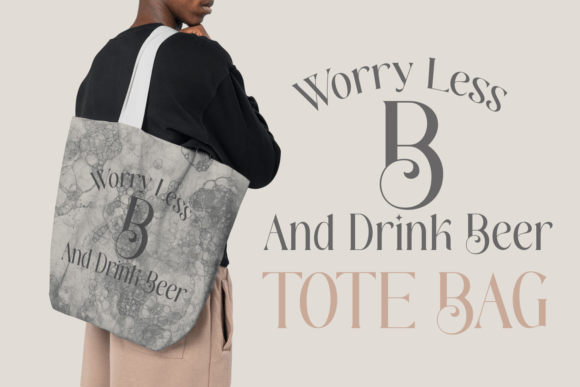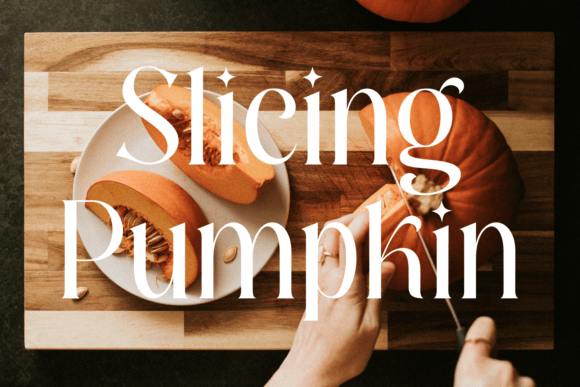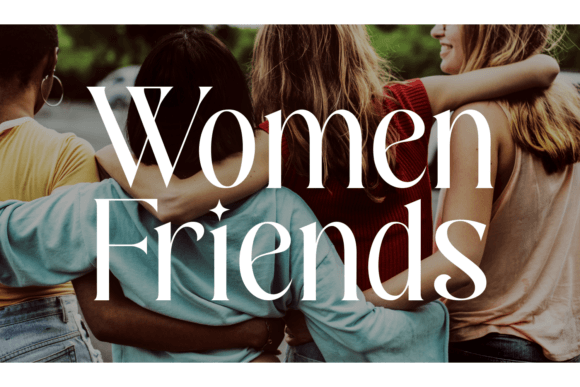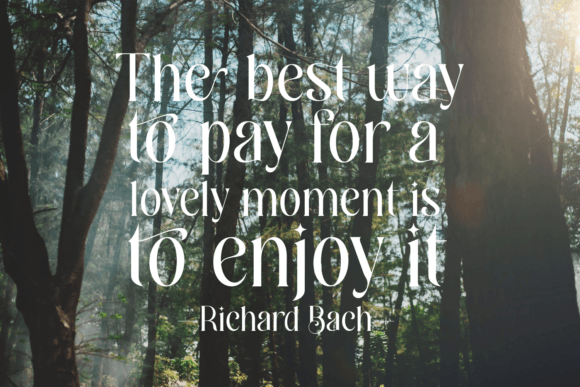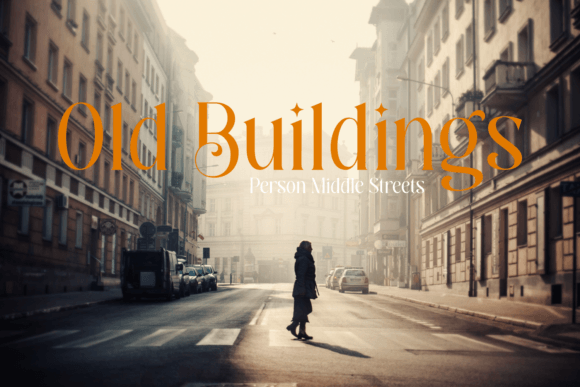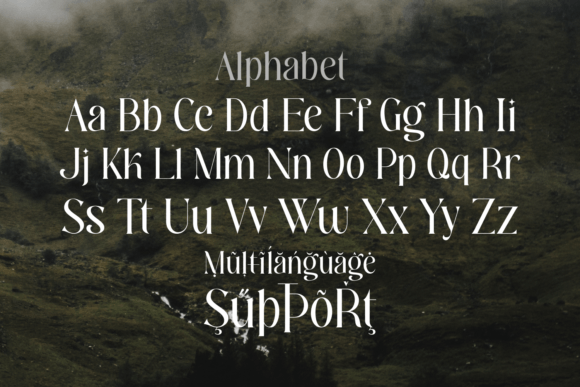
Introducing Beardstone Font: Elevate Your Creations with Elegance and Sophistication
Are you looking for a font that can add a touch of class and authenticity to your business? Look no further than Beardstone, an exquisite serif font that can transform any creation from good to absolutely fantastic! In this article, we’ll dive into the world of Beardstone, exploring its features, benefits, and uses, and discover why it’s a must-have for designers and crafters.
The Story Behind Beardstone
Beardstone is a carefully crafted serif font that exudes elegance and sophistication. Its unique design combines traditional elements with modern twists, making it perfect for a wide range of applications, from branding and advertising to packaging and publishing. With Beardstone, you can add a touch of refinement and luxury to your creations, setting them apart from the competition.
Key Features of Beardstone
- Exquisite Serif Design: Beardstone’s serif design is meticulously crafted to provide a classic and sophisticated look, perfect for businesses that want to convey tradition and heritage.
- Highly Versatile: Beardstone is a highly versatile font that can be used in a variety of contexts, from headings and titles to body text and captions.
- Easily Readable: Despite its ornate design, Beardstone is surprisingly easy to read, making it perfect for use in both print and digital media.
- Multilingual Support: Beardstone supports multiple languages, making it a great choice for businesses with a global presence.
Benefits of Using Beardstone
So why choose Beardstone for your next project? Here are just a few benefits of using this exceptional font:
- Adds Class and Authenticity: Beardstone’s elegant design instantly adds a touch of class and authenticity to your creations, helping to establish your brand as a trusted and reputable authority in your industry.
- Enhances Brand Identity: With Beardstone, you can create a consistent brand identity that reflects your values and personality, setting you apart from competitors and resonating with your target audience.
- Boosts Creativity: Beardstone’s unique design and versatility make it the perfect choice for creative projects, allowing you to experiment with different styles and layouts.
Using Beardstone in Your Designs
So how can you use Beardstone in your designs? Here are a few ideas to get you started:
- Branding and Logo Design: Use Beardstone to create a sophisticated and memorable logo that reflects your brand’s values and personality.
- Advertising and Marketing Materials: Add a touch of elegance to your advertising and marketing materials, including brochures, flyers, and posters.
- Packaging Design: Use Beardstone to create eye-catching and luxurious packaging that stands out on store shelves.
- Digital Media: Beardstone is perfect for use in digital media, including website headers, social media graphics, and email marketing campaigns.
| Font Name | Beardstone Font |
| Author | Ari (7NTypes) |